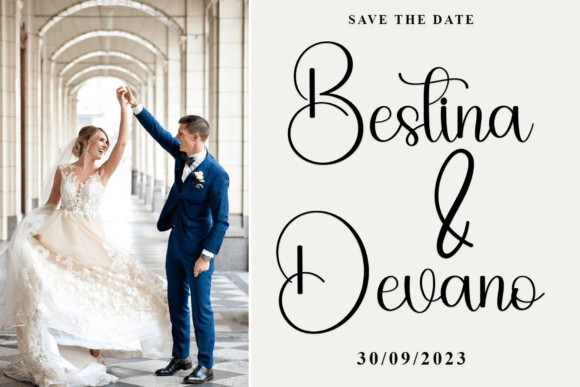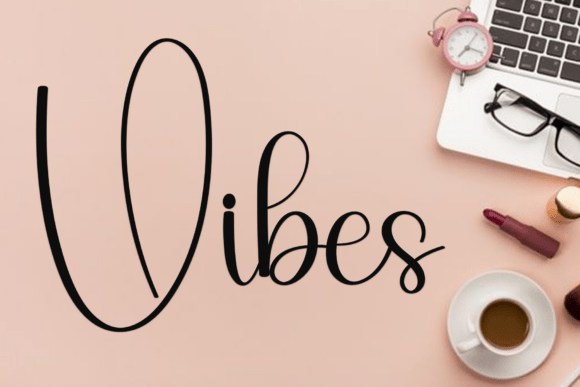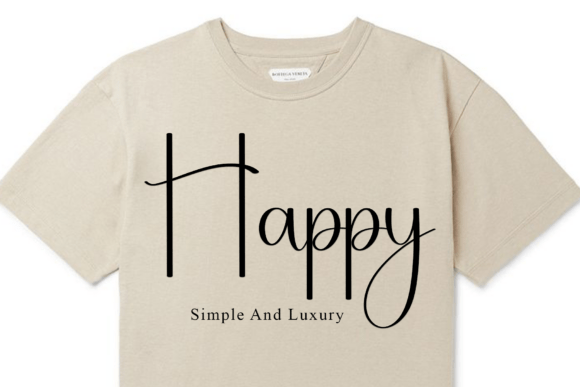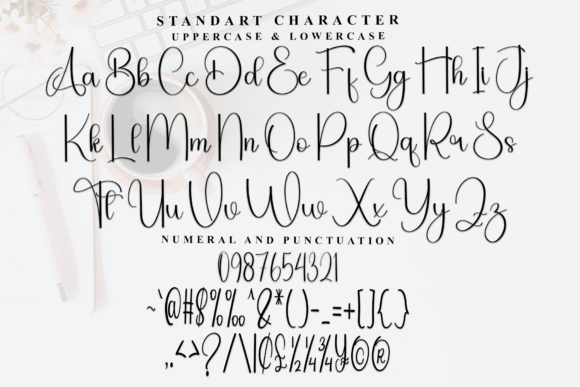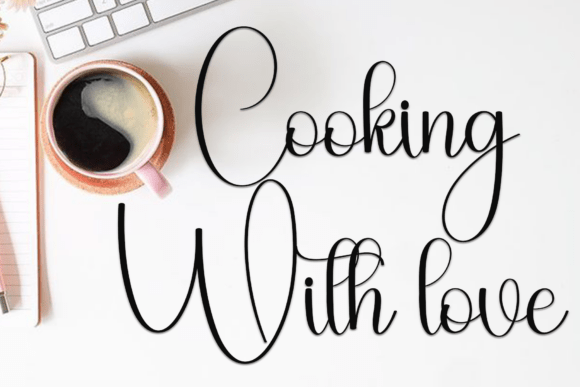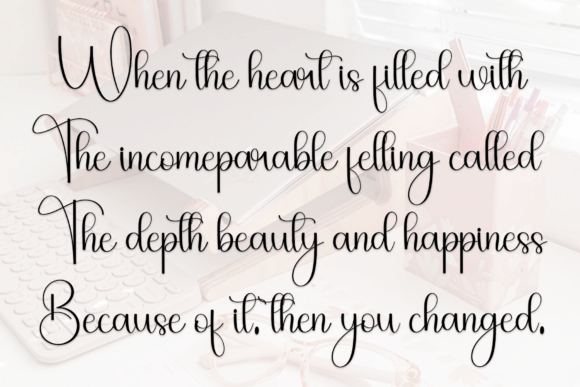
Unleashing the Art of Handwritten Elegance
Have you ever stumbled upon a beautifully crafted wedding invitation that left you in awe? Maybe it was the intricate details, the perfect balance of colors, or the elegant font that caught your attention. For designers and creatives, those ‘aha’ moments are what make our jobs so rewarding. And today, we’re excited to share with you a secret that can elevate your designs to the next level: the enchanting Bhabhi Font.
This stunning script font is a game-changer for designers looking to add a touch of handwritten elegance to their projects. From wedding invitations to business cards, the Bhabhi Font is the perfect choice for anyone seeking to create a lasting impression. With its versatility and sophistication, it’s no wonder designers are flocking to this incredible font to give their designs that extra special something.
- Unique Characteristics: Bhabhi Font features a unique blend of traditional and modern elements, making it an ideal choice for designers and typographers looking for a distinctive and eye-catching font.
Bhabhi Font Review
Overall, I found “Bhabhi Font” to be a unique and visually striking font, particularly well-suited for Indian languages. Here are some of its strengths:
- ✨ Beautiful script styles for added flair, perfect for traditional or cultural contexts
- ✨ Well-designed ligatures for a more natural flow and aesthetic
- ✨ Good support for complex scripts, ensuring a smooth user experience
- ⚠️ Limited font weight options, which may not be ideal for headings or emphasis
- ⚠️ Some letterforms may appear inconsistent or rough at certain sizes or resolutions
- ⚠️ Not suitable for modern, minimalist designs where clean lines and simplicity are key
In conclusion, “Bhabhi Font” is a great choice for projects requiring a traditional or cultural flair. While it may not be the best fit for every design, its strengths make it a valuable addition to any font library. With some careful selection and usage, you can create beautiful and effective designs with this unique font.
Bhabhi Font is ideal for:
- Creative projects like infographics and posters.
- Personalized gifts like customized t-shirts and mugs.
- Business branding and marketing materials.
Remember to use Bhabhi Font in moderation and balance it with other design elements to avoid overwhelming the viewer.
Alternatives to Bhabhi Font for Designers
Bhabhi Font is a popular font known for its elegant and sophisticated design. However, there are several other fonts that can offer similar or unique alternatives for designers.
Great Vibes is a script font that is perfect for creating a sense of elegance and sophistication. It is ideal for use in wedding invitations, greeting cards, and other formal events. Great Vibes is similar to Bhabhi Font in its flowing and cursive nature, but it has a more relaxed and casual feel.
Carolyna Pro is a modern script font that is perfect for creating a sense of luxury and sophistication. It is ideal for use in high-end branding, advertising, and packaging designs. Carolyna Pro is similar to Bhabhi Font in its elegant and refined design, but it has a more dramatic and attention-grabbing feel.